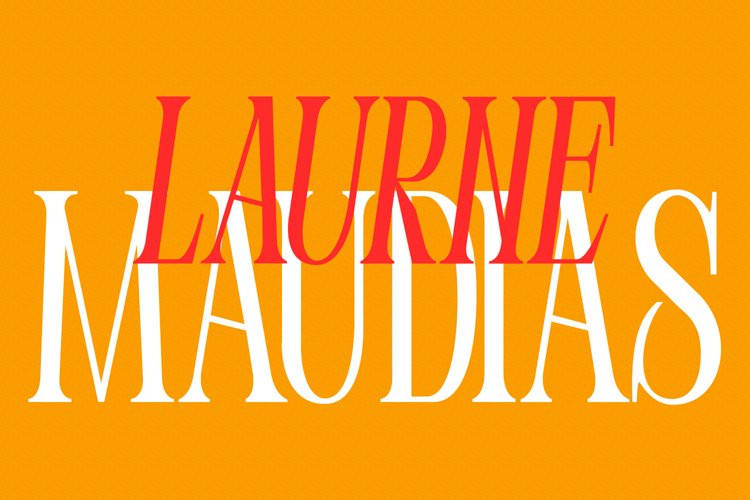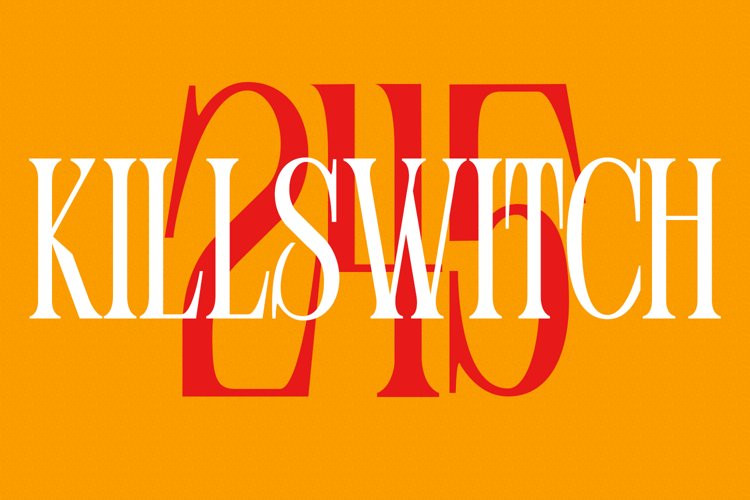
Moresh Font
Moresh FontMoresh is a modern display serif font. With regular contrast stroke, fun character with a bit of ligatures and alternates. To give you an extra creative work. Moresh font support multilingual more than 100+ language. This font is good for logo design, Social media, Movie Titles, Books Titles, a short text even a long text letter and good for your secondary text font with sans or serif. Make a stunning work with Moresh font.